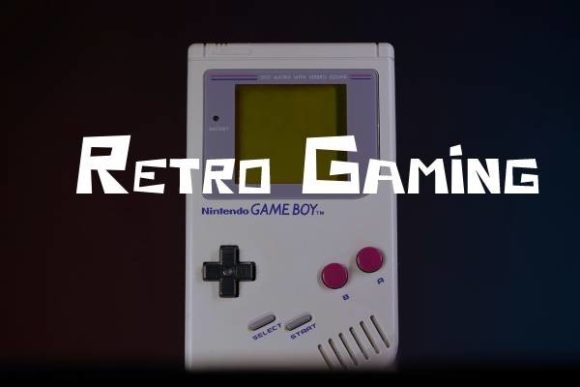
Retro Gaming Pixel Font, 8-Bit Arcade Display Typeface
Retro Gaming is a pixel‑style display font designed to evoke the classic arcade and 8‑bit video game aesthetic. With its blocky, retro‑tech appearance, this font is ideal for vintage‑styled graphics, game‑themed designs, posters, merchandise, logos, or any creative project that needs a nostalgic gaming vibe.
This font belongs to the Fonts and Display Fonts categories. Its pixelated design makes it especially appropriate for projects related to gaming, technology, digital art, or retro‑themed branding — whether for print, web, or merchandise.
- Game developers or designers creating retro‑style game graphics or UI mockups
- Crafters and Etsy / Shopify sellers making gaming-themed T‑shirts, hoodies, mugs, posters, or digital prints
- POD entrepreneurs targeting gamers, retro‑art fans, or nostalgia markets
- Graphic designers creating branding, logos, or headers with a pixel / arcade look
- Anyone making digital art, social‑media graphics, or printable decor with old‑school video‑game style
- Video‑game inspired T‑shirt or hoodie designs
- Mugs, tumblers, or merchandise with pixel‑art styled text
- Posters, flyers, or signage with retro‑gaming headings
- Game UI mockups, digital art, or social‑media graphics
- Logos and branding for gaming‑ or tech‑focused brands
- Printable art, stickers, vinyl decals, or pixel‑style designs
- Classic 8‑bit / arcade aesthetic for a nostalgic feel
- Great for gaming‑themed merchandise, logos, and digital art
- Versatile — works equally well for print, web, and merchandise
| Feature | Retro Gaming | Generic Sans/Display Font | Script / Decorative Font |
| Style & Vibe | Pixel / 8‑bit / Retro arcade | Modern & clean | Decorative / hand‑lettered styles |
| Best for | Gaming merch, posters, 80s/retro projects, digital art | Body text, general print/web layouts | Decorative designs, invitations, handmade‑style art |
| Use Cases | Merchandise, posters, game‑themed art, logos, social graphics | General text, minimal branding, documents | Decorative designs, invitations, craft art |